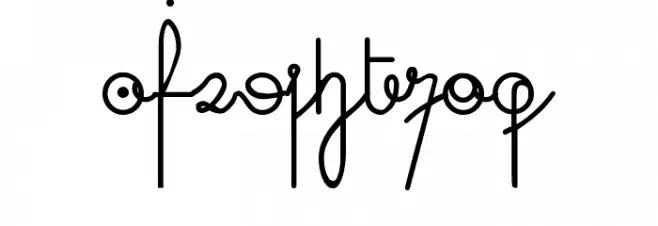
cursive digits Font
cursive digits Description
This font features a unique and playful cursive style where each digit is connected in a continuous, flowing manner. The strokes are smooth and rounded, giving it a whimsical and artistic appearance. The design is characterized by its looped and intertwined elements, creating a sense of movement and fluidity. Each number is distinct yet harmoniously blends with the others, making it ideal for creative and informal applications. The font's playful nature is perfect for projects that require a touch of elegance and creativity, such as invitations, greeting cards, or artistic branding.
A playful cursive font with interconnected, flowing digits from Uncategorized fonts.
- Proposed Projects: Ideal for creative projects like invitations, greeting cards, and artistic branding.
- Use Case: Logos, Artistic projects